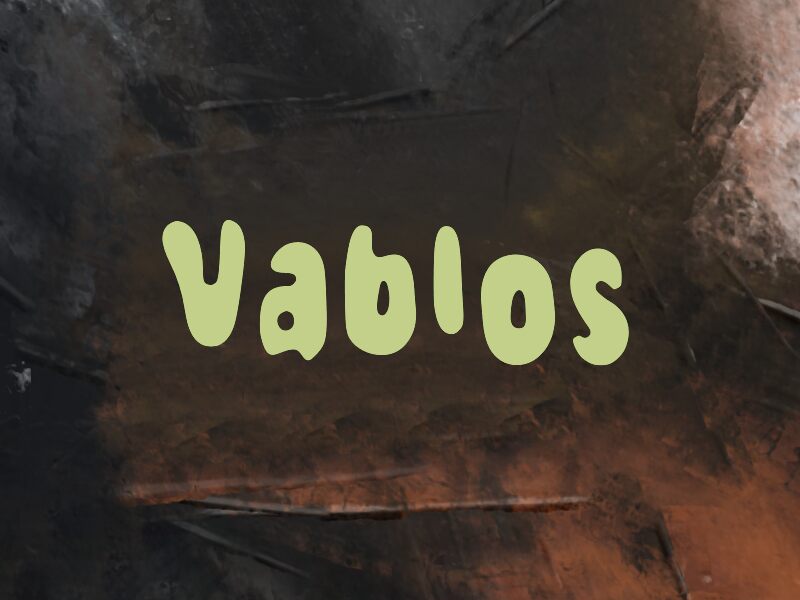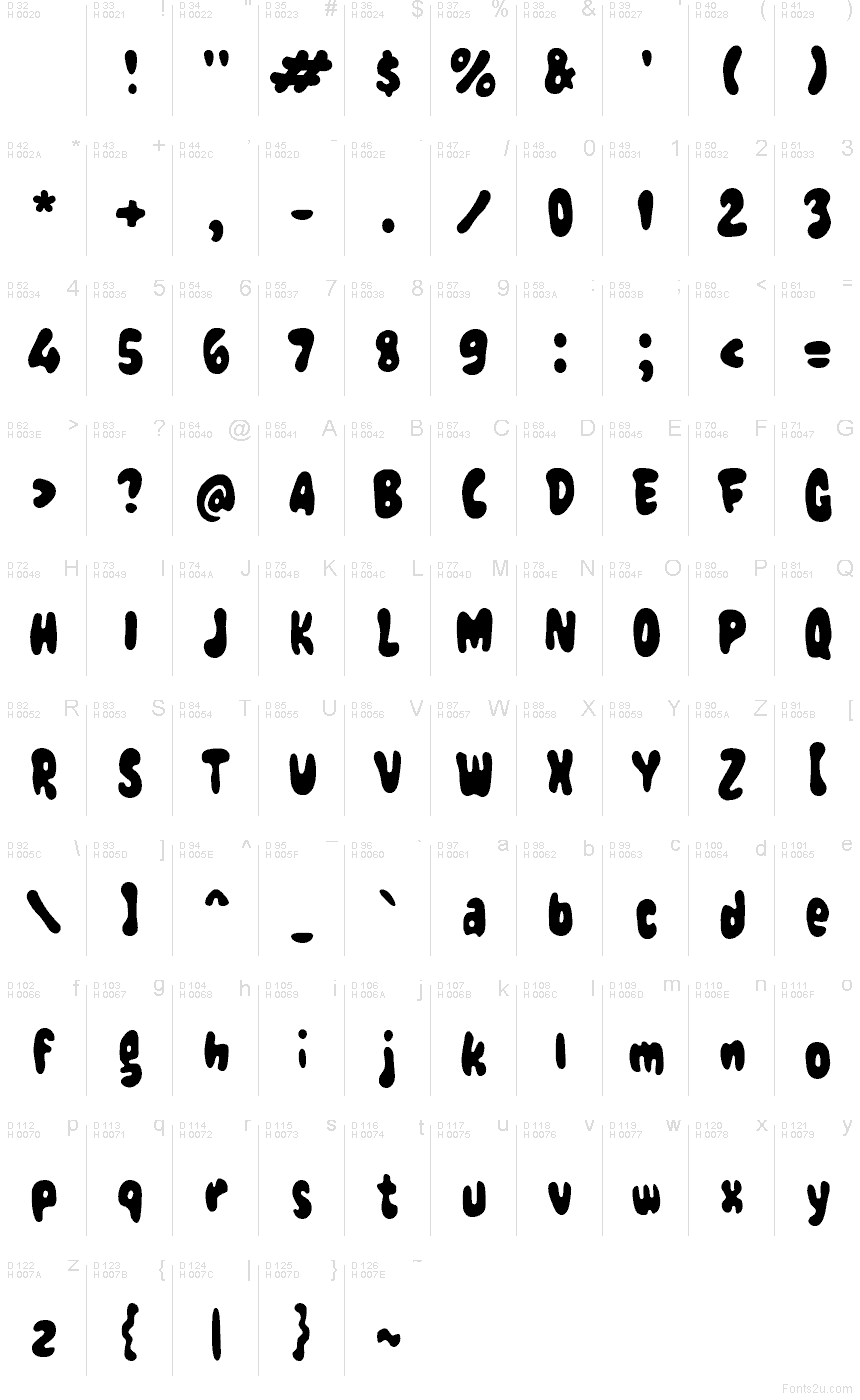
Vablos
Vablos font by wepfont.com is a free cartoon display typeface with a wonderfully squishy, hand-drawn feel. Each letter looks like it’s been puffed up with air, with soft, inky blobs that wobble just enough to feel playful but still stay readable. The chunky silhouettes, irregular curves, and generous counters give it a bouncy rhythm that instantly says fun, messy, and a little bit mischievous.
Using Vablos, headlines and wordmarks feel like they’re sliding across slime or oozing off a sticker sheet. This free font shines on kids’ posters, birthday invitations, toy packaging, YouTube thumbnails, game titles, and playful brand logos. For longer text, pair Vablos with a clean rounded sans in smaller sizes to keep the bubbly personality in the spotlight without overwhelming your layout.